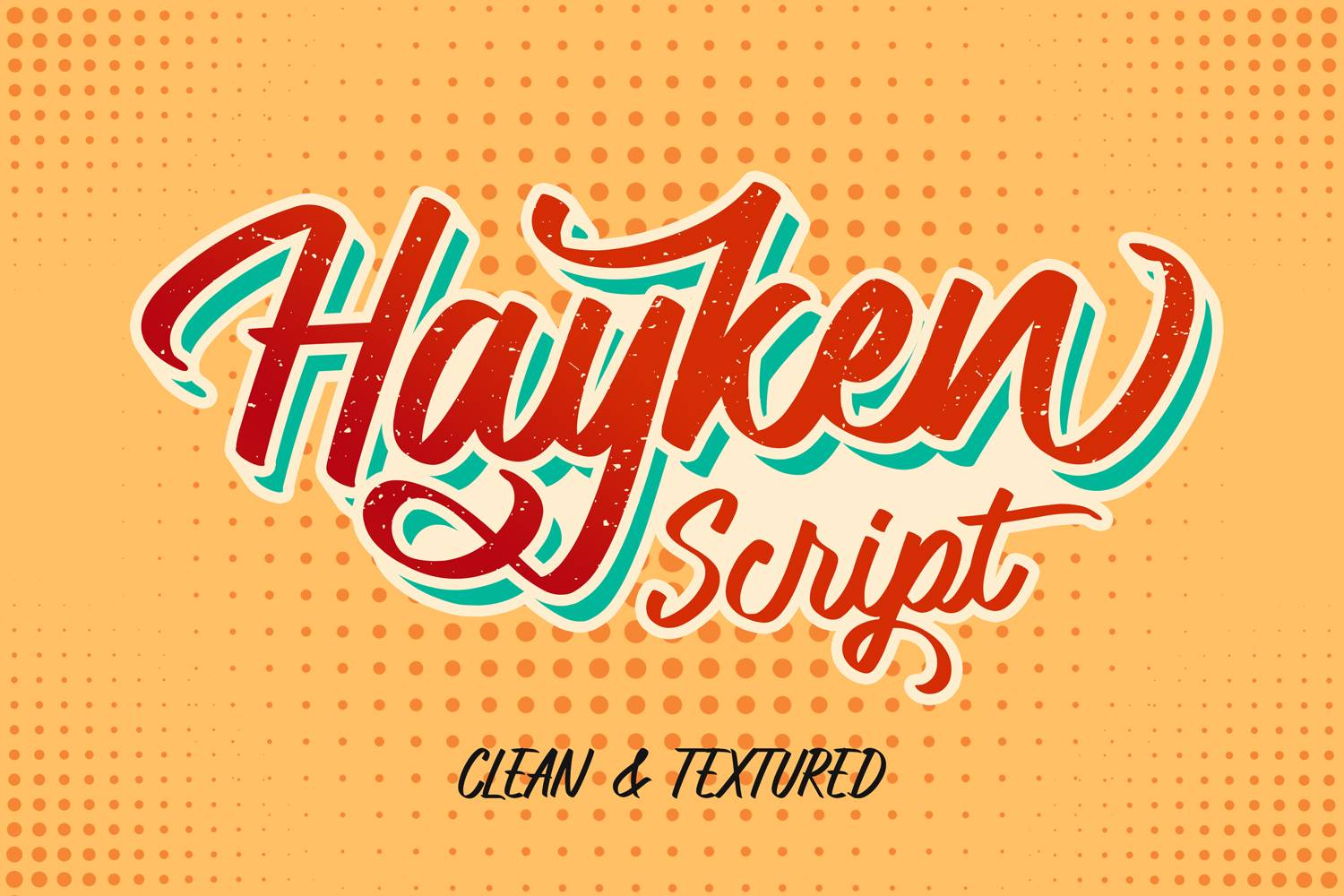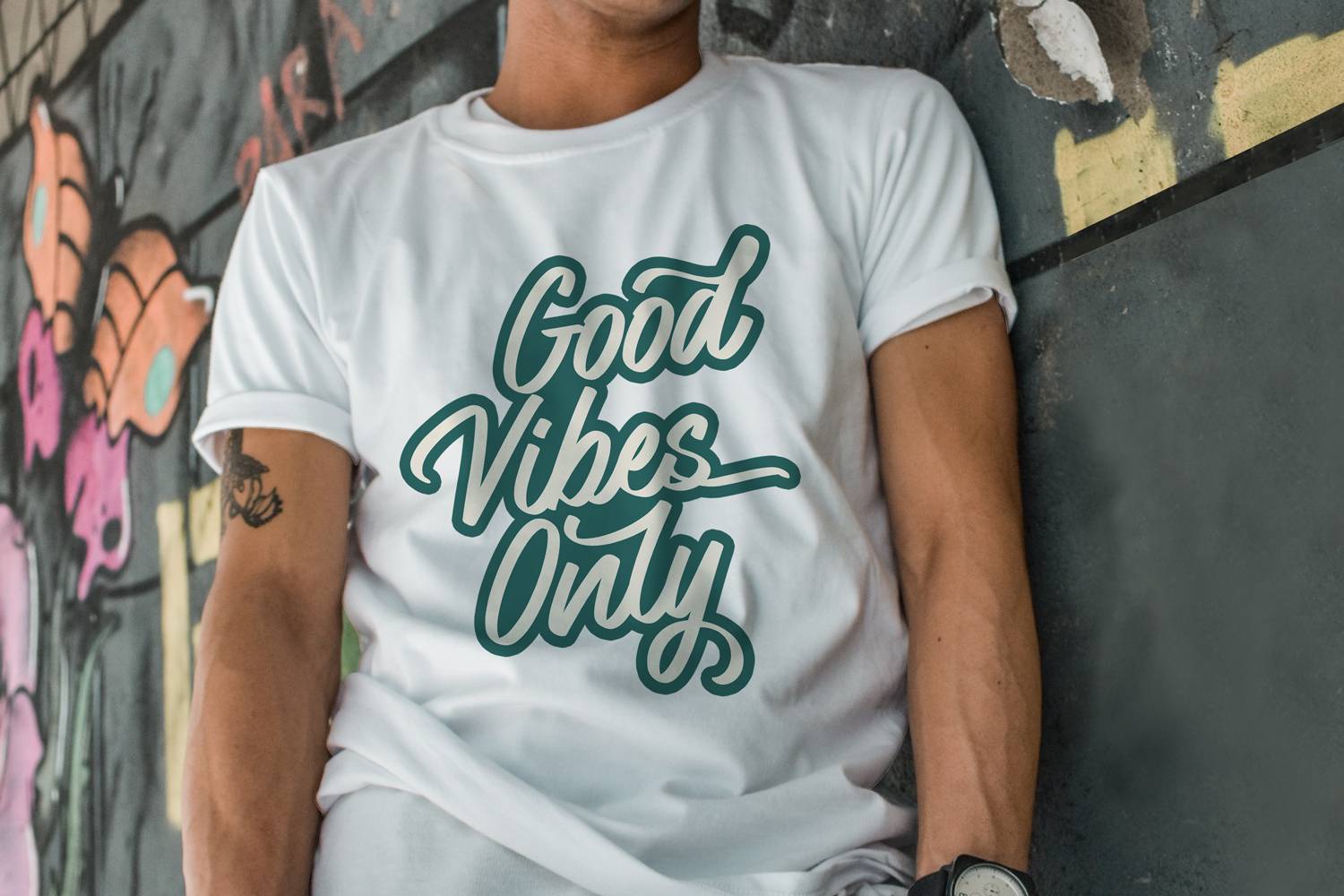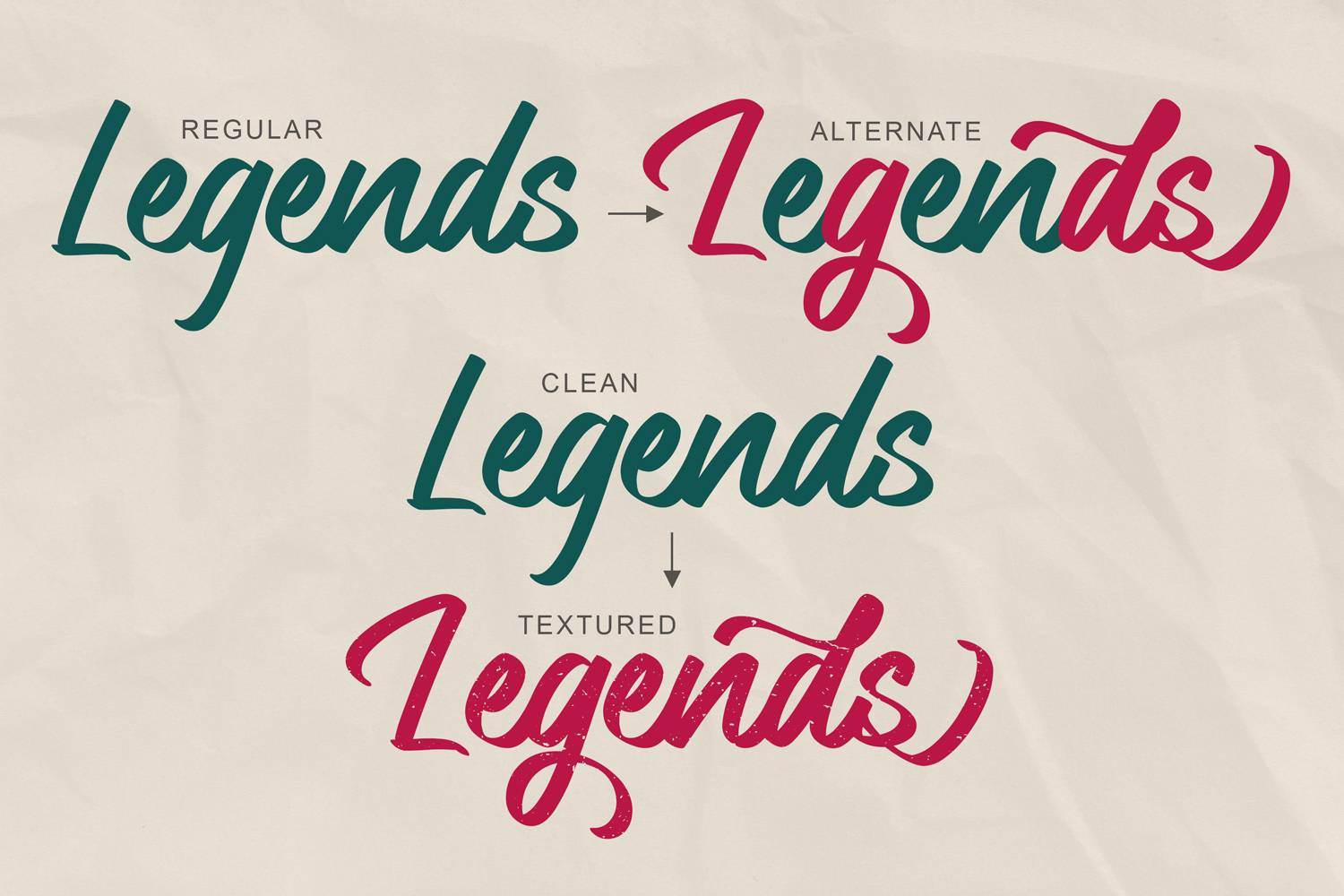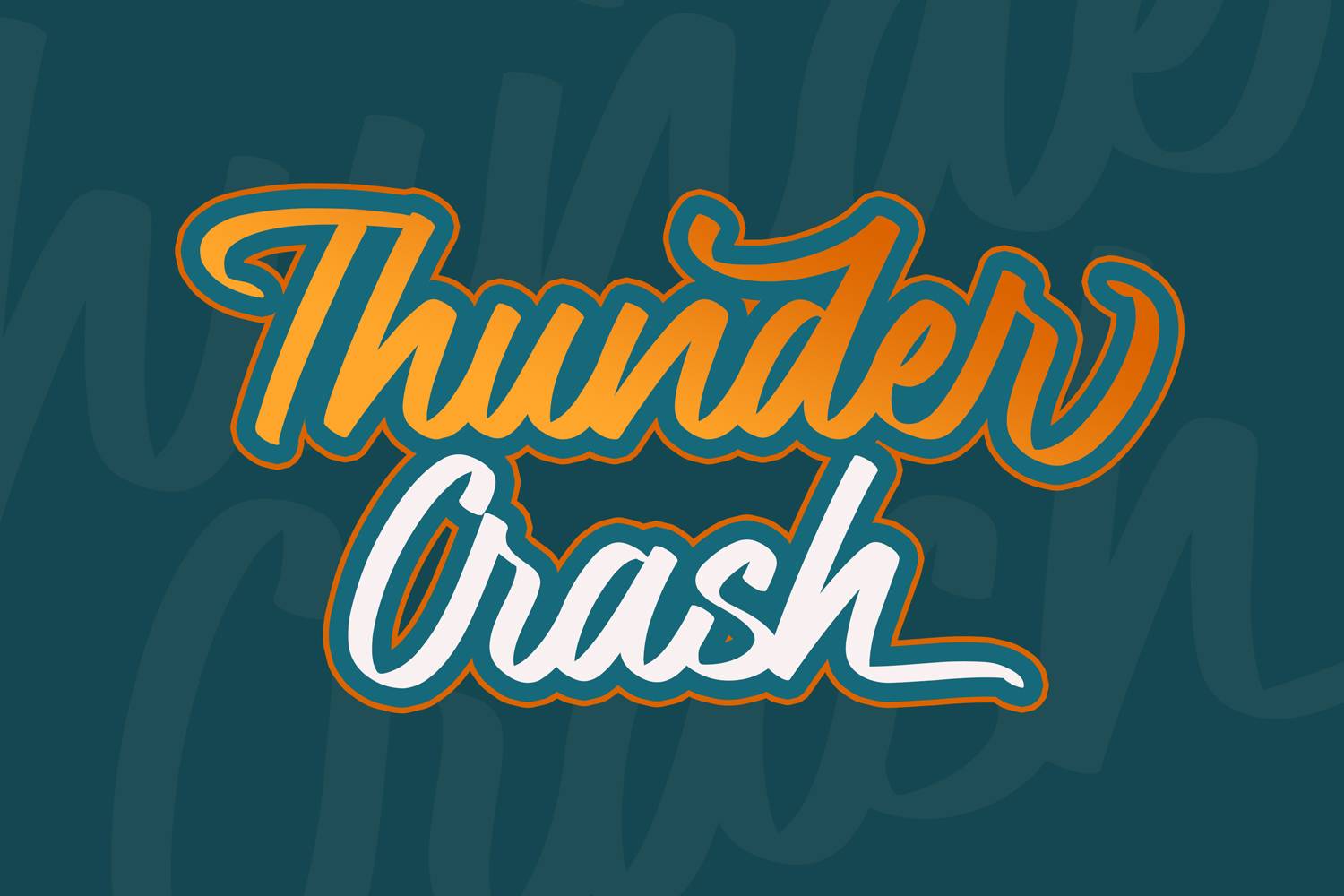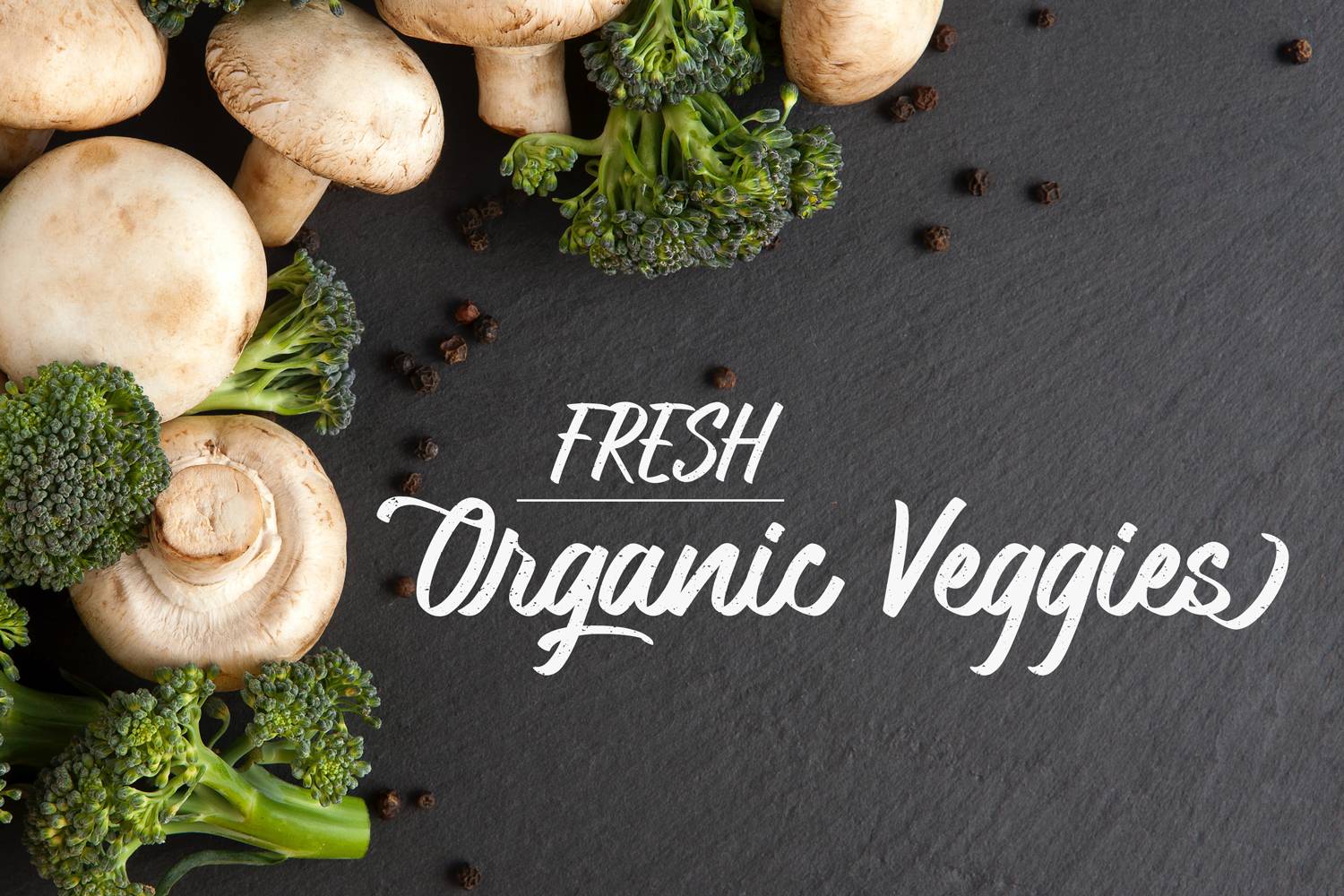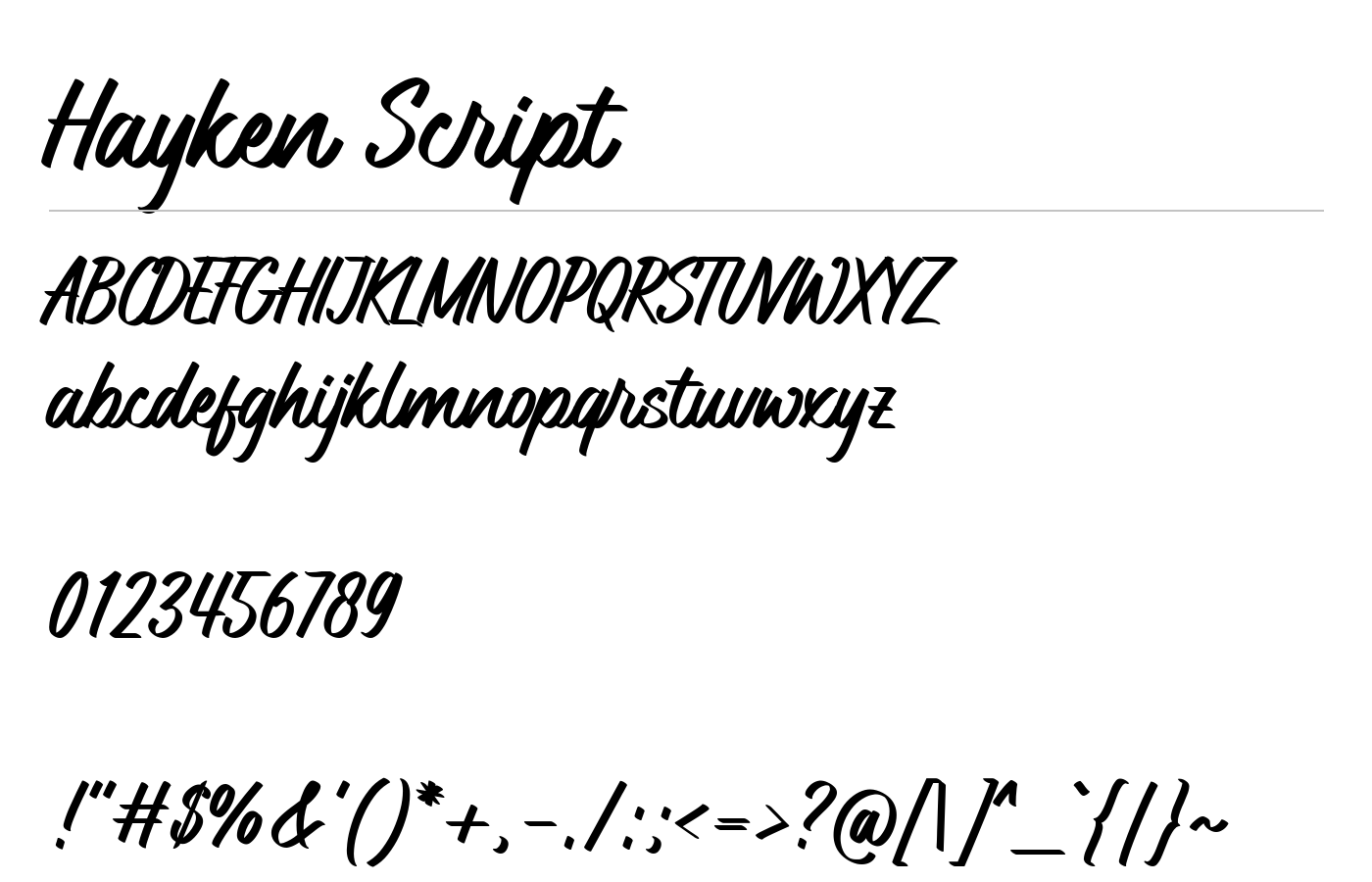
Hayken Script is a lively, modern script font with a bold, energetic feel. Its smooth, slightly slanted strokes and connected letterforms give it a handcrafted, casual elegance, making it ideal for branding, invitations, and creative projects that want to convey warmth and personality. The font’s clear readability combined with its playful charm works well for headlines, logos, and stylish packaging designs.
Hayken Script Font
About Hayken Script Font
| Font family | Hayken Script Font |
| Release date | 2021-12-12 |
| Designer | Lemonthe. Dwi Ahidian |